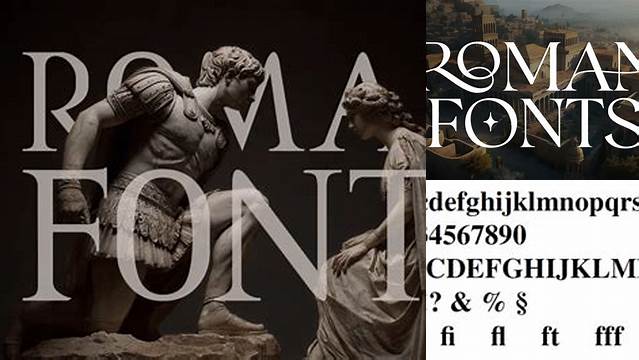
Modern Roman Fonts: Guide, Examples & Usage
Hey guys! Ever wondered about those elegant, timeless fonts that just scream sophistication? We're talking about modern Roman fonts! These fonts have a rich history, evolving from ancient inscriptions to become a staple in contemporary design. In this guide, we'll dive deep into the world of modern Roman fonts, exploring their characteristics, history, and how you can use them to elevate your projects. So, buckle up and let's get started!
1. Understanding the Basics of Modern Roman Fonts
So, what exactly are modern Roman fonts? Well, at their core, they are a class of typefaces inspired by the classical Roman letterforms. But the “modern” part? That’s where things get interesting! These fonts represent a significant departure from their older siblings, the old-style Roman fonts. Modern Roman fonts generally feature a higher contrast between thick and thin strokes, a more vertical stress, and flat, unbracketed serifs. This gives them a cleaner, more contemporary feel while still retaining that timeless elegance. Think of fonts like Didot and Bodoni – those are prime examples of modern Roman fonts in action. These fonts are the workhorses of the design world, appearing everywhere from high-fashion magazines to classic book covers. They’ve got a gravitas that few other font families can match, making them a go-to choice when you need to project sophistication and authority.
2. The History and Evolution of Roman Typefaces
The story of modern Roman fonts is a fascinating journey through centuries of typographic innovation. It all started way back with the Roman alphabet itself, carved into stone monuments and inscriptions. These early letterforms, with their sturdy serifs and balanced proportions, laid the groundwork for what would eventually become the Roman typeface family. Over time, these letterforms evolved, adapting to new technologies and aesthetic preferences. The invention of the printing press in the 15th century was a major turning point, leading to the development of more refined and standardized typefaces. But it wasn’t until the 18th century that the modern Roman fonts we know and love today began to emerge. Type designers like Firmin Didot and Giambattista Bodoni pushed the boundaries of typeface design, creating fonts with extreme contrast and sharp, elegant serifs. These fonts became wildly popular and set the standard for modern Roman fonts for generations to come.
3. Key Characteristics of Modern Roman Fonts
Okay, let's get down to the nitty-gritty. What are the defining features of modern Roman fonts? How do you spot one in the wild? Well, there are a few key characteristics to keep in mind. First off, you’ll notice the high contrast between the thick and thin strokes. This is a hallmark of modern Roman fonts and gives them a distinctive, elegant appearance. Secondly, look at the serifs. In most modern Roman fonts, they are flat, thin, and unbracketed, meaning they form a sharp, perpendicular angle with the main strokes. This contrasts with the more curved and bracketed serifs found in old-style Roman fonts. Thirdly, consider the vertical stress. In modern Roman fonts, the stress (the direction of the thickest part of the letter) is typically vertical, whereas in older styles, it might be more diagonal. Finally, think about the overall impression. Modern Roman fonts tend to feel more formal, refined, and contemporary than their old-style counterparts. Keep these characteristics in mind, and you’ll be a modern Roman font expert in no time!
4. Popular Modern Roman Font Families
Ready to meet some of the biggest stars in the modern Roman font world? Let's take a tour of some popular font families that exemplify this style. We've already mentioned Didot and Bodoni, and these are definitely the headliners. Didot, with its elegant thin strokes and sharp serifs, is a favorite for fashion magazines and luxury brands. Bodoni, equally striking, offers a similar level of sophistication and is often used in book design and branding. But the modern Roman font family extends beyond these two giants. Palatino, designed by Hermann Zapf, is a more humanist take on the style, offering a slightly warmer and more readable feel. Times New Roman, a ubiquitous choice for newspapers and books, is another example, though it leans more towards the transitional Roman style (a sort of middle ground between old-style and modern Roman). And then there's Century Schoolbook, a classic choice for educational materials, known for its clarity and legibility. Each of these fonts brings its own unique flavor to the modern Roman aesthetic, offering a range of options for different design needs.
5. Using Modern Roman Fonts in Design Projects
Now for the fun part: how do you actually use modern Roman fonts in your design projects? These fonts are incredibly versatile, but they do have a certain personality that you need to consider. Generally, modern Roman fonts are a great choice when you want to convey elegance, sophistication, and authority. They work beautifully in branding for high-end products, fashion, and luxury goods. Think of a sleek logo set in Bodoni, or a wedding invitation with the delicate curves of Didot – instantly classy! They also shine in editorial design, bringing a touch of refinement to magazines, books, and websites. However, it’s important to use them judiciously. Their high contrast can sometimes make them less legible in large blocks of text, especially at smaller sizes. Pairing them with a simpler sans-serif font for body copy can be a great way to balance elegance and readability. Also, avoid using too many different fonts in one design, as this can create a cluttered and unprofessional look. Less is often more when it comes to typography!
6. Modern Roman Fonts vs. Old-Style Roman Fonts
Let's settle the score: modern Roman fonts versus old-style Roman fonts. What's the real difference, and when should you choose one over the other? As we've discussed, modern Roman fonts are characterized by their high contrast, flat serifs, and vertical stress. Old-style Roman fonts, on the other hand, have lower contrast, bracketed serifs (meaning they have a more gradual curve connecting them to the main strokes), and a more diagonal stress. In terms of personality, modern Roman fonts tend to feel more formal, elegant, and contemporary, while old-style fonts have a warmer, more traditional, and humanistic feel. So, when do you pick one over the other? If you’re aiming for a classic, refined look, modern Roman is often the way to go. But if you want something that feels a bit more approachable and readable, especially for long-form text, old-style might be a better choice. Ultimately, it comes down to the specific project and the message you're trying to convey.
7. Pairing Modern Roman Fonts with Other Typefaces
One of the keys to great typography is knowing how to pair fonts effectively. Modern Roman fonts, with their distinctive personality, require a bit of finesse in this area. The general rule of thumb is to pair them with a font that complements their elegance without competing for attention. A classic pairing is a modern Roman headline with a clean, simple sans-serif for the body copy. This creates a visual hierarchy, with the elegant headline drawing the eye and the sans-serif providing comfortable readability. Think of a Bodoni headline paired with a font like Helvetica or Arial – a timeless combination. Another option is to pair a modern Roman with a less formal serif font, but this can be trickier to pull off. You need to make sure the two fonts have enough contrast in style and weight to avoid a muddy look. Experimentation is key, but always prioritize readability and visual harmony. You want your typography to enhance your design, not distract from it!
8. The Impact of Modern Roman Fonts on Branding
Branding is all about creating a distinctive identity, and typography plays a huge role in that. Modern Roman fonts, with their air of sophistication and authority, can be a powerful tool for shaping a brand's image. They're particularly well-suited for brands that want to project a sense of luxury, elegance, and timelessness. Think of high-fashion brands, upscale hotels, or classic publishers – you'll often see modern Roman fonts in their logos and marketing materials. The sharp lines and high contrast of these fonts convey a sense of precision and attention to detail, while their historical roots evoke a feeling of tradition and heritage. However, it's important to use them strategically. A modern Roman font might not be the best choice for a brand that wants to be perceived as playful, innovative, or casual. It's all about aligning the typography with the brand's overall personality and target audience.
9. Modern Roman Fonts in Web Design
Web design presents its own unique challenges and opportunities when it comes to typography. Modern Roman fonts, while beautiful, can sometimes be tricky to use effectively on the web. The high contrast that makes them so elegant can also make them less legible on screens, especially at smaller sizes or on low-resolution displays. This doesn't mean you should avoid them altogether, but it does mean you need to be mindful of how you use them. Consider using them primarily for headlines and subheadings, where their elegance can shine without compromising readability. For body copy, a simpler sans-serif font might be a better choice. Also, pay attention to font size and line height. A larger font size and generous line spacing can improve legibility. And be sure to test your font choices on different devices and browsers to ensure they render correctly. With careful planning, you can bring the sophistication of modern Roman fonts to your web designs.
10. Modern Roman Fonts in Print Design
Print design is where modern Roman fonts truly get to shine. Unlike the often-pixelated world of screens, print offers a crisp, clean canvas that allows the nuances of these fonts to come through. In print, you can fully appreciate the sharp serifs, the elegant curves, and the subtle variations in stroke weight. This makes modern Roman fonts a natural choice for a wide range of printed materials, from books and magazines to brochures and invitations. They bring a touch of class and sophistication to any project. When working with modern Roman fonts in print, consider the paper stock and printing method. A smooth, high-quality paper will showcase the font's elegance beautifully, while a textured paper can add a touch of warmth and character. And remember to proof your designs carefully before printing to ensure that the typography looks its best.
11. The Future of Modern Roman Font Design
What does the future hold for modern Roman font design? While these fonts have a long and rich history, they're by no means stuck in the past. Designers are constantly finding new ways to reinterpret and modernize the classic Roman style, pushing the boundaries of what's possible. We're seeing more variations in weight, width, and contrast, as well as new interpretations of the serifs and letterforms. Variable fonts, a relatively new technology, are also opening up exciting possibilities. Variable fonts allow designers to create a single font file that can be customized in countless ways, offering unprecedented flexibility and control over typography. This means we can expect to see even more diverse and expressive modern Roman fonts in the years to come. The future of Roman type is bright, and it's exciting to see where it will go!
12. Modern Roman Font Alternatives: Exploring Similar Styles
Okay, so you love the look of modern Roman fonts, but you're looking for something a little different? No problem! There are plenty of other fonts out there that capture a similar aesthetic while offering their own unique twist. If you're a fan of Didot or Bodoni, you might want to check out fonts like ITC Fenice or Baskerville. These fonts share the high-contrast elegance of the modern Roman style but have their own distinctive personalities. Another option is to explore transitional Roman fonts, which, as we mentioned earlier, fall somewhere between old-style and modern Roman. Fonts like Times New Roman and Bookman Old Style offer a more balanced and readable alternative to the extreme contrast of some modern Roman fonts. And if you're feeling adventurous, you could even try pairing a modern Roman with a complementary sans-serif font, as we discussed earlier. The key is to experiment and find what works best for your project.
13. The Psychological Impact of Modern Roman Fonts
Typography isn't just about aesthetics; it also has a psychological impact on the viewer. The fonts we choose can subtly influence how people perceive a design and the message it conveys. Modern Roman fonts, with their elegance and formality, often evoke feelings of sophistication, authority, and trustworthiness. They can make a design feel more upscale and prestigious. This is why they're so popular in branding for luxury goods, financial institutions, and other industries that want to project a sense of confidence and stability. However, it's important to be aware of the potential downsides. The formality of modern Roman fonts can sometimes make them feel a bit cold or aloof, especially if they're overused or paired with the wrong elements. The key is to use them thoughtfully and in a way that aligns with the overall message you're trying to communicate.
14. Modern Roman Fonts and Readability: Balancing Style and Function
Readability is a crucial factor in any design project, especially when it involves large blocks of text. And this is where modern Roman fonts can sometimes present a challenge. Their high contrast, while visually striking, can also make them less legible than fonts with lower contrast. The thin strokes can disappear at small sizes or on low-resolution screens, and the sharp serifs can create a busy, distracting effect if the text is too dense. This doesn't mean you should avoid modern Roman fonts for body copy altogether, but it does mean you need to be extra careful about font size, line height, and letter spacing. A larger font size and generous line spacing can improve readability, as can choosing a modern Roman variant with slightly thicker strokes. And if you're working on a web design, be sure to test your font choices on different devices and browsers to ensure they render correctly. Ultimately, the goal is to strike a balance between style and function, choosing a font that looks beautiful but is also easy to read.
15. Modern Roman Fonts in Logo Design: Creating a Timeless Mark
A logo is the face of a brand, and typography plays a critical role in shaping that face. Modern Roman fonts, with their timeless elegance, can be a great choice for logos that want to convey a sense of sophistication, heritage, and authority. They work particularly well for brands in industries like fashion, luxury goods, and financial services. Think of the logos for brands like Vogue, Tiffany & Co., or Goldman Sachs – all of which feature modern Roman fonts. The sharp lines and graceful curves of these fonts create a sense of precision and attention to detail, while their historical roots evoke a feeling of tradition and stability. However, it's important to choose a modern Roman font that is legible and scalable. A logo needs to look good not just on a business card but also on a billboard. So, opt for a font with clear, well-defined letterforms that will hold up at different sizes. And be sure to consider the overall brand identity. A modern Roman font might not be the best choice for a brand that wants to be perceived as playful or innovative.
16. Free Modern Roman Fonts: Resources and Recommendations
Looking to add some modern Roman flair to your designs without breaking the bank? Good news! There are plenty of high-quality free modern Roman fonts available online. Sites like Google Fonts, Font Squirrel, and DaFont offer a wide selection of free fonts, including many excellent modern Roman options. But before you start downloading everything in sight, it's important to be discerning. Not all free fonts are created equal. Some may have incomplete character sets, poor kerning, or licensing restrictions that limit their use. So, do your research and choose fonts from reputable sources. Google Fonts is a great place to start, as all the fonts there are open-source and free for commercial use. Some popular free modern Roman options include Playfair Display, Libre Baskerville, and Crimson Text. These fonts offer a range of styles and weights, making them suitable for a variety of design projects. Just remember to always check the license terms before using a free font, to ensure that it meets your needs.
17. Paid Modern Roman Fonts: Investing in Quality Typography
While there are many excellent free modern Roman fonts available, sometimes it's worth investing in a premium font. Paid fonts often offer a higher level of quality, with more refined letterforms, a wider range of weights and styles, and more comprehensive language support. They may also come with additional features like OpenType alternates and ligatures, which can add a touch of elegance and sophistication to your designs. If you're working on a high-profile branding project or a publication that requires impeccable typography, a paid font can be a worthwhile investment. Sites like MyFonts, FontShop, and Adobe Fonts offer a vast selection of paid modern Roman fonts, from classic revivals to contemporary designs. Some popular options include Bodoni 72, Didot LT Std, and Garamond Premier Pro. When choosing a paid font, consider the overall aesthetic of your project and the message you're trying to convey. And be sure to check the licensing terms to ensure that the font can be used for your intended purpose.
18. Modern Roman Fonts for Body Text: Legibility Considerations
We've touched on this before, but it's worth revisiting: using modern Roman fonts for body text requires careful consideration of legibility. As we've discussed, the high contrast of these fonts can sometimes make them less readable than fonts with lower contrast, especially at small sizes or on screens. This doesn't mean you should avoid them altogether, but it does mean you need to be extra mindful of how you use them. If you're set on using a modern Roman font for body text, opt for a font with slightly thicker strokes and a more generous x-height (the height of the lowercase letters). Also, pay close attention to font size, line height, and letter spacing. A larger font size and generous line spacing can improve readability, as can a slightly wider letter spacing. And be sure to test your font choices on different devices and browsers to ensure they render correctly. If readability is paramount, you might consider pairing a modern Roman headline with a simpler sans-serif or old-style Roman font for the body text. This can create a visual hierarchy while ensuring a comfortable reading experience.
19. Modern Roman Fonts for Headlines: Making a Statement
Headlines are your chance to grab the reader's attention and make a statement, and modern Roman fonts are perfectly suited for this task. Their elegance, sophistication, and authority can add a touch of class to any design. A bold modern Roman headline can instantly elevate the look and feel of a website, a magazine spread, or a poster. When choosing a modern Roman font for a headline, consider the overall tone of your project. A font like Didot, with its delicate thin strokes, might be perfect for a fashion magazine, while a bolder font like Bodoni could be a better choice for a more serious publication. Also, think about the size and weight of the headline in relation to the other elements on the page. A headline needs to be prominent enough to catch the eye, but it shouldn't overwhelm the design. And don't be afraid to experiment with different font sizes, letter spacing, and kerning to achieve the desired effect. With a little tweaking, you can create a headline that is both visually striking and perfectly aligned with your message.
20. Modern Roman Fonts and Kerning: Achieving Perfect Spacing
Kerning, the adjustment of spacing between individual letter pairs, is a crucial aspect of typography. Even the most beautiful modern Roman font can look awkward if it's poorly kerned. The high contrast of these fonts, with their thick and thin strokes, makes kerning particularly important. Gaps can appear too wide or too narrow, disrupting the flow of the text and making it harder to read. Fortunately, most professional font families come with built-in kerning tables that automatically adjust the spacing between common letter pairs. However, sometimes manual kerning is necessary to fine-tune the spacing and achieve a perfect result. This is especially true for headlines and logos, where even small spacing errors can be noticeable. When kerning a modern Roman font, pay close attention to the spaces between letters like A and V, W and A, and T and o. These letter pairs often require manual adjustment. A good rule of thumb is to aim for consistent spacing throughout the text, so that the letters appear evenly distributed. With careful kerning, you can ensure that your typography is both beautiful and legible.
21. Modern Roman Fonts and Leading: Optimizing Line Height
Leading, also known as line-height, refers to the vertical space between lines of text. It's a crucial factor in readability, especially when working with modern Roman fonts. As we've discussed, the high contrast of these fonts can make them less legible than fonts with lower contrast, particularly in body text. Insufficient leading can exacerbate this problem, making the text feel cramped and difficult to read. On the other hand, too much leading can make the text feel disconnected and disjointed. The ideal leading will vary depending on the font size, the length of the lines, and the overall design of the page. A general guideline is to set the leading to be around 120% to 145% of the font size. So, for example, if you're using a 12-point font, you might set the leading to 14-17 points. However, it's always best to experiment and see what looks best for your specific project. When working with modern Roman fonts, it's often beneficial to err on the side of more leading rather than less, as this can improve legibility and make the text feel more open and inviting.
22. Modern Roman Fonts and Tracking: Adjusting Letter Spacing
Tracking, also known as letter-spacing, refers to the uniform spacing between all the letters in a word or block of text. It's a subtle but important aspect of typography that can have a significant impact on readability and visual appeal. While kerning adjusts the spacing between individual letter pairs, tracking affects the overall density of the text. When working with modern Roman fonts, it's important to pay attention to tracking, as their high contrast and delicate strokes can make them appear too tight or too loose if the letter spacing is not properly adjusted. In general, a slightly wider tracking can improve the legibility of modern Roman fonts, especially in body text. This gives the letters a little more breathing room and prevents them from feeling cramped. However, it's important to avoid overdoing it, as too much tracking can make the text feel disjointed and harder to read. The ideal tracking will depend on the font size, the weight of the font, and the overall design of the page. Experimentation is key to finding the right balance. For headlines, you might choose to use a slightly tighter tracking to create a more impactful and dramatic effect. But for body text, a slightly wider tracking is usually preferable.
23. Modern Roman Fonts and Ligatures: Adding Elegance and Refinement
Ligatures are special characters that combine two or more letters into a single glyph. They're a subtle but effective way to add elegance and refinement to typography, particularly when working with modern Roman fonts. Certain letter combinations, such as fi, fl, ff, ffl, and ffi, can create awkward gaps or collisions when set in standard type. Ligatures address this problem by creating a more harmonious and visually appealing connection between the letters. Many modern Roman fonts, especially high-quality paid fonts, include a set of ligatures as part of their character set. These ligatures are often designed to mimic the calligraphic flourishes of handwritten letterforms, adding a touch of artistry to the text. When using modern Roman fonts with ligatures, it's important to use them judiciously. Overusing ligatures can make the text feel overly ornate and distracting. A good rule of thumb is to use them sparingly, primarily in headlines and display text where their elegance can be fully appreciated. For body text, it's usually best to stick with the standard letterforms, as ligatures can sometimes reduce legibility at smaller sizes. However, in the right context, ligatures can be a powerful tool for enhancing the beauty and sophistication of modern Roman typography.
24. The Influence of Calligraphy on Modern Roman Fonts
Calligraphy, the art of beautiful handwriting, has had a profound influence on the design of modern Roman fonts. The earliest Roman letterforms were originally carved into stone, but they were heavily inspired by the elegant strokes and flourishes of calligraphic scripts. Over time, type designers sought to capture the beauty and fluidity of calligraphy in their typefaces. The thick and thin strokes, the graceful curves, and the delicate serifs that characterize modern Roman fonts are all echoes of calligraphic traditions. When designing a modern Roman font, type designers often study historical calligraphic manuscripts and experiment with different pen angles and stroke weights to achieve the desired effect. The goal is to create a typeface that has the precision and legibility of a printed letterform but also the warmth and personality of a handwritten script. This influence of calligraphy is one of the reasons why modern Roman fonts are often perceived as elegant, sophisticated, and timeless. They embody a sense of craftsmanship and artistry that is rooted in the history of writing.
25. Modern Roman Fonts in Editorial Design: Creating Visual Hierarchy
Editorial design, the art of laying out text and images in publications like magazines, newspapers, and books, relies heavily on typography to create visual hierarchy and guide the reader through the content. Modern Roman fonts are a popular choice for editorial design, as their elegance and sophistication can add a touch of class to any publication. However, it's important to use them strategically to create a clear and effective visual hierarchy. Headlines, subheadings, and body text should all be set in different fonts and sizes to help the reader understand the structure and flow of the content. A common approach is to use a bold modern Roman font for headlines, a slightly smaller modern Roman font or a transitional Roman font for subheadings, and a simple sans-serif font for body text. This creates a visual contrast that draws the reader's eye to the headlines while ensuring that the body text is easy to read. It's also important to consider the use of whitespace, leading, and tracking to create a visually appealing and comfortable reading experience. By carefully choosing and arranging type, editorial designers can create publications that are both beautiful and informative.
26. Modern Roman Fonts in Book Design: A Classic Choice
Book design is a field where modern Roman fonts have a long and storied history. These fonts are a classic choice for book typography, as their elegance and legibility make them well-suited for long blocks of text. Many of the most beloved books in history have been set in modern Roman fonts like Bodoni, Didot, and Garamond. When choosing a font for book design, legibility is paramount. Readers need to be able to read comfortably for extended periods of time, so the font should be clear and well-spaced. Modern Roman fonts with slightly thicker strokes and a more generous x-height are often preferred for body text, as they tend to be more legible at smaller sizes. For the title page and chapter headings, a bolder and more decorative modern Roman font can be used to add visual interest and create a sense of grandeur. The choice of font, paper, and binding all contribute to the overall look and feel of a book, and modern Roman fonts can help to create a timeless and elegant reading experience.
27. Common Mistakes to Avoid When Using Modern Roman Fonts
While modern Roman fonts are incredibly versatile and elegant, they can also be tricky to use effectively. There are a few common mistakes that designers should avoid when working with these fonts. One of the biggest mistakes is overusing them. Modern Roman fonts are best used sparingly, as too much elegance can become overwhelming. Avoid using them for every element on the page, and consider pairing them with simpler sans-serif fonts or transitional Roman fonts for contrast. Another common mistake is using them at too small a size. The delicate strokes and high contrast of modern Roman fonts can make them difficult to read at small sizes, especially on screens. Always test your font choices at different sizes to ensure that they remain legible. Poor kerning, leading, and tracking can also detract from the beauty of modern Roman fonts. Pay close attention to these details and make adjustments as needed to achieve a polished and professional look. Finally, be mindful of the overall tone of your design. Modern Roman fonts are formal and sophisticated, so they may not be the best choice for projects that are meant to be playful or casual. By avoiding these common mistakes, you can ensure that your modern Roman typography is both beautiful and effective.
28. The Importance of Licensing When Using Modern Roman Fonts
Licensing is a crucial aspect of using any font, including modern Roman fonts. Fonts are software, and they are protected by copyright law. This means that you need to have a license to use a font legally. There are different types of font licenses, each with its own terms and conditions. Some licenses allow you to use the font for personal projects only, while others allow for commercial use. Some licenses limit the number of users who can install the font, while others allow for unlimited use within an organization. It's important to carefully read the license agreement before using a font to ensure that you are complying with the terms. Using a font without a proper license can result in legal penalties. When downloading free modern Roman fonts, be sure to check the license terms carefully. Some free fonts are truly free for any use, while others have restrictions. If you're unsure about the terms of a font license, it's always best to err on the side of caution and contact the font designer or foundry for clarification. Paying attention to licensing will help you avoid legal issues and ensure that you are using fonts ethically.
29. Resources for Learning More About Modern Roman Fonts
Want to dive deeper into the world of modern Roman fonts? There are plenty of resources available to help you expand your knowledge and hone your typographic skills. Books on typography, such as The Elements of Typographic Style by Robert Bringhurst and Thinking with Type by Ellen Lupton, are excellent resources for learning about the history, theory, and practice of typography. Websites like Typographica, I Love Typography, and Fonts in Use offer articles, reviews, and examples of great typography in action. Online courses and workshops, such as those offered by Skillshare and Lynda.com, can provide structured learning experiences and expert guidance. And of course, experimenting with different modern Roman fonts in your own design projects is one of the best ways to learn. By exploring the nuances of these fonts and practicing your skills, you can develop a deeper appreciation for the art of typography and create designs that are both beautiful and effective. Don't be afraid to try new things and push your creative boundaries. The world of modern Roman fonts is vast and fascinating, and there's always something new to discover.
30. The Enduring Appeal of Modern Roman Fonts
After all this discussion, it's clear that modern Roman fonts have an enduring appeal that transcends trends and fads. Their elegance, sophistication, and historical significance make them a timeless choice for a wide range of design projects. From high-fashion magazines to classic book covers, modern Roman fonts have graced some of the most iconic designs of all time. Their ability to convey authority and trustworthiness makes them a popular choice for branding and corporate communications. And their versatility allows them to be used effectively in both print and web design. The enduring appeal of modern Roman fonts lies in their ability to strike a balance between tradition and modernity. They are rooted in the rich history of typography, yet they remain relevant and contemporary. Whether you're a seasoned designer or just starting out, exploring the world of modern Roman fonts is a worthwhile endeavor. By understanding their history, characteristics, and best practices for use, you can harness their power to create designs that are both beautiful and effective. So go ahead, experiment with Didot, Bodoni, and other modern Roman fonts, and discover the timeless elegance they can bring to your work!